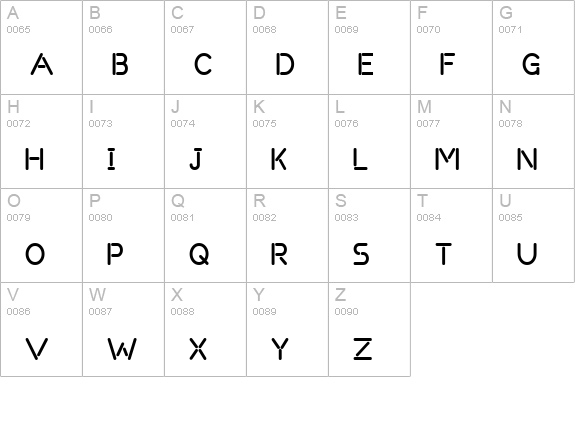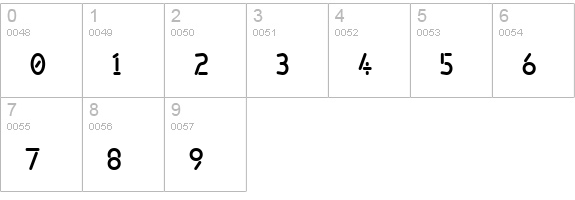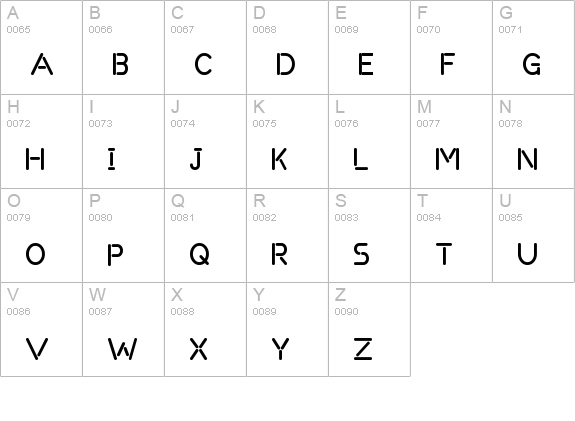
Introducing Um Sticks font, a versatile and modern typeface that is sure to make a statement in any design project. This unique font combines clean lines with a playful twist, creating a captivating visual experience. Um Sticks font is perfect for a wide range of applications, including branding, logo design, headlines, posters, and much more. Its elegant and contemporary style adds a touch of sophistication to any design, while still maintaining a sense of fun and approachability. One of the best features of Um Sticks font is that it is free! Yes, you heard that right. This amazing font is freely available to download at FontsMarket.com, making it accessible to designers of all levels. Whether you're a professional graphic designer or just starting out, Um Sticks font is a valuable addition to your font collection. With its extensive character set, Um Sticks font supports multiple languages, making it a versatile choice for global design projects. Its legibility and readability ensure that your message will be effectively communicated, no matter the context. The clean and precise lines of Um Sticks font give it a sleek and modern look, while the unique letterforms add a touch of personality. This combination of simplicity and creativity makes it a standout choice for any design that aims to make a bold and memorable impact. So why wait? Download Um Sticks font for free at FontsMarket.com and unlock a world of creative possibilities. Whether you're designing for print or digital media, this font will elevate your designs and leave a lasting impression on your audience. Don't miss out on this incredible opportunity to enhance your design projects with the one-of-a-kind Um Sticks font.